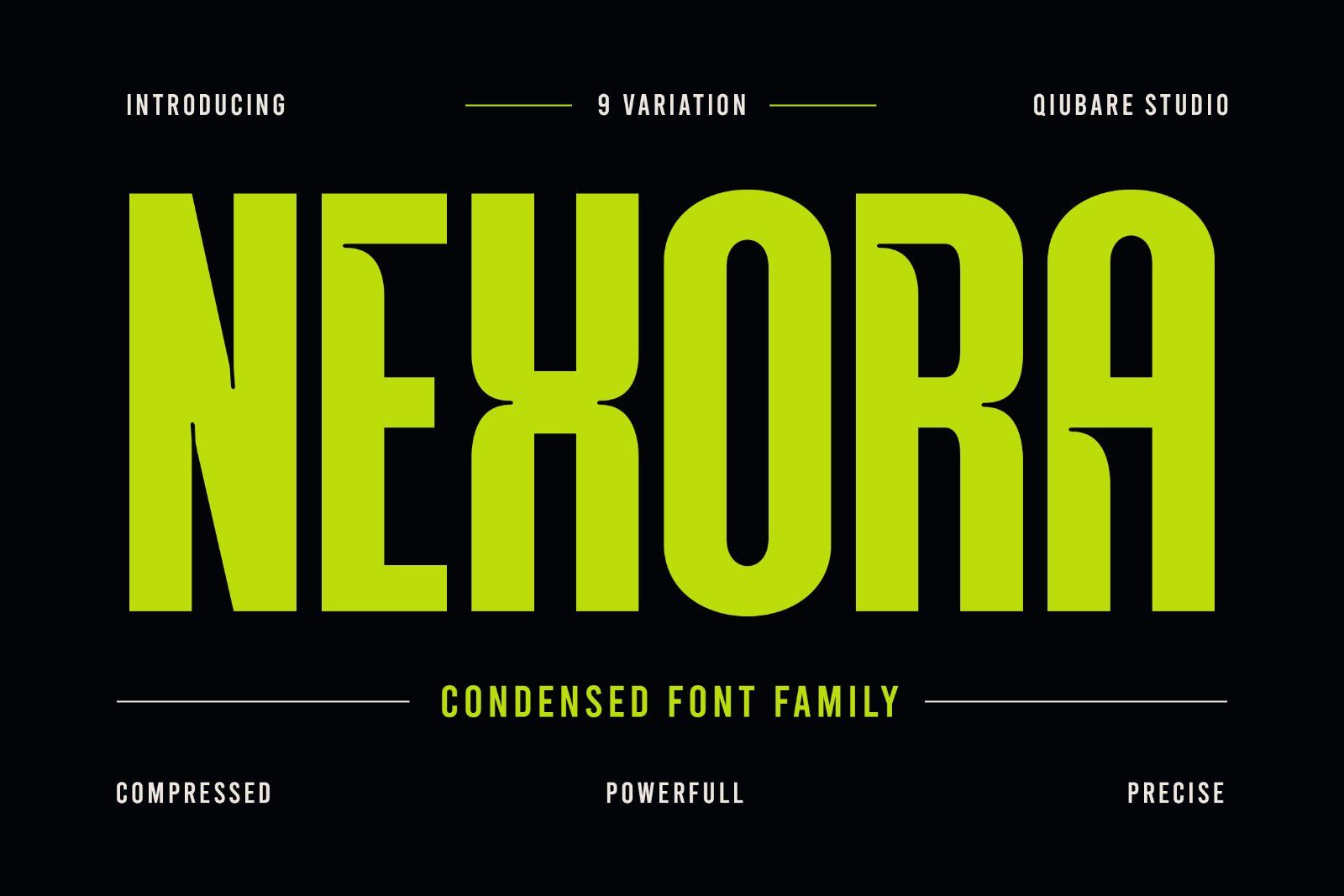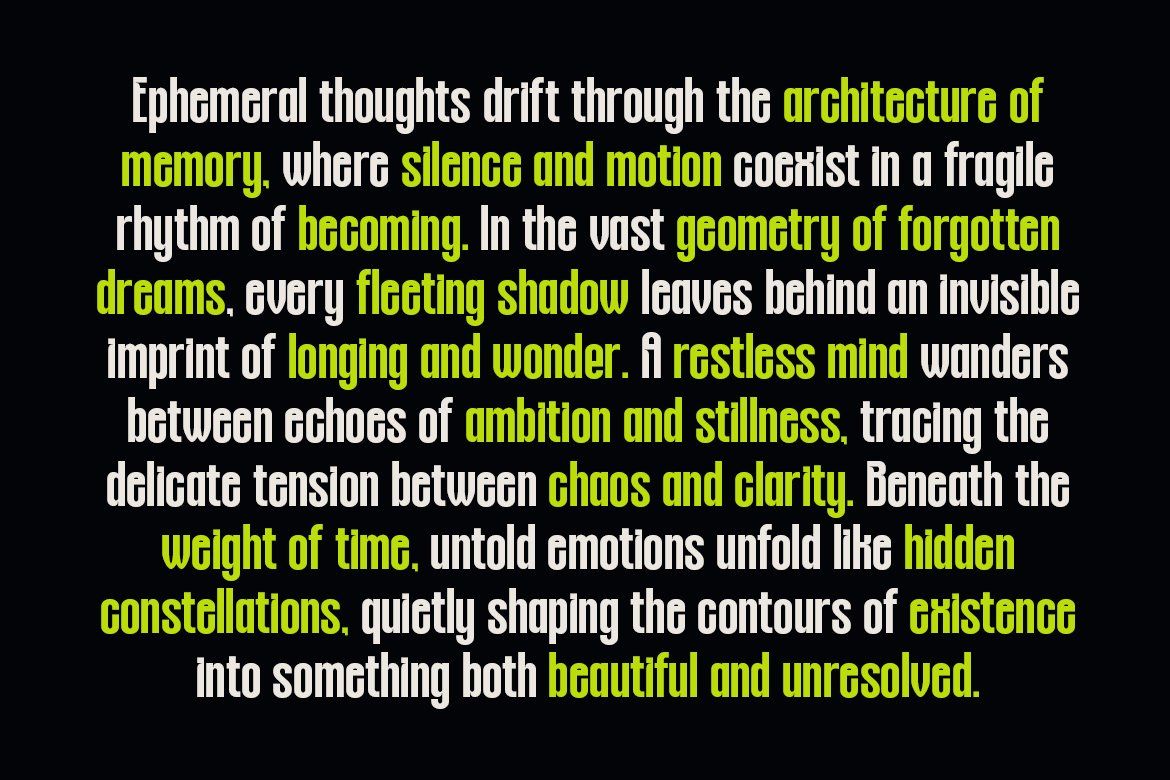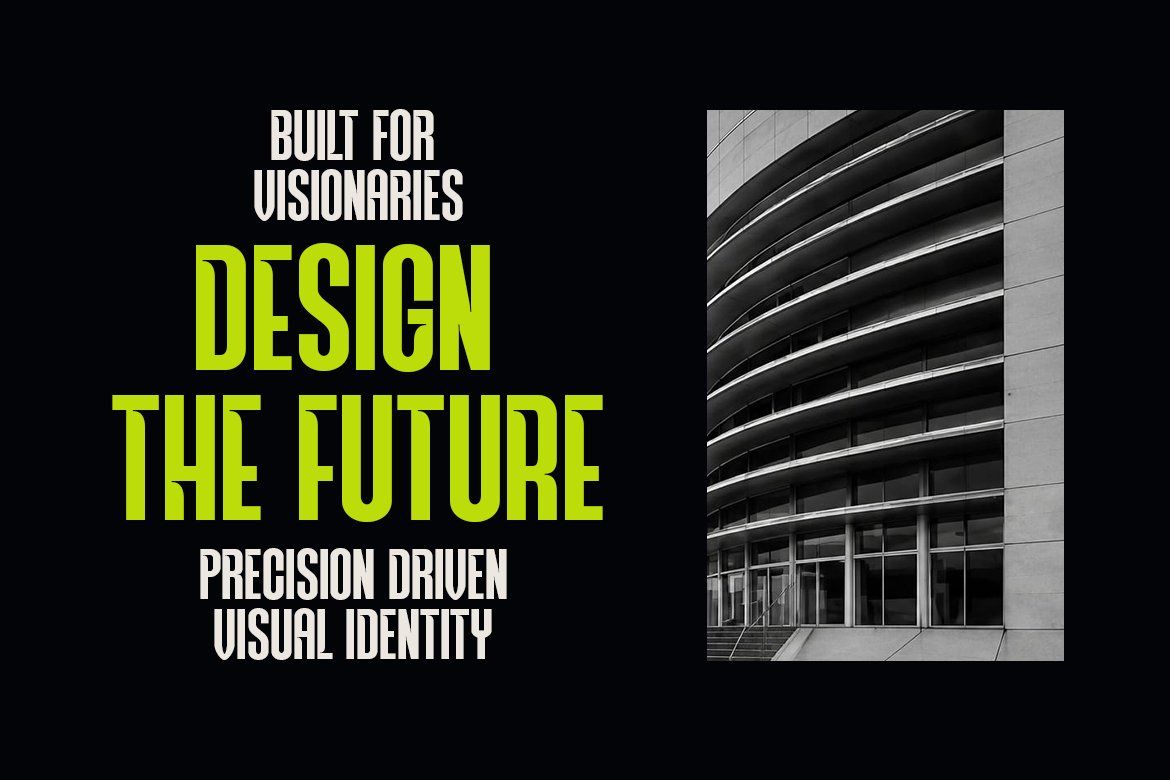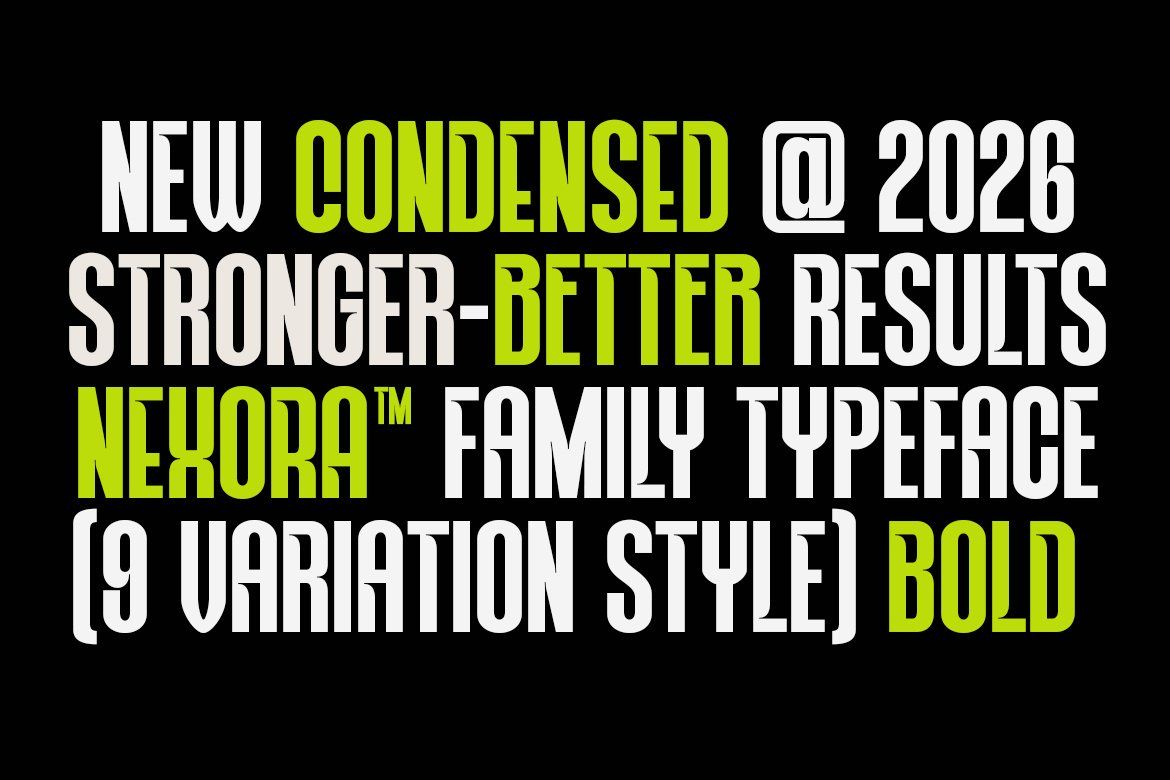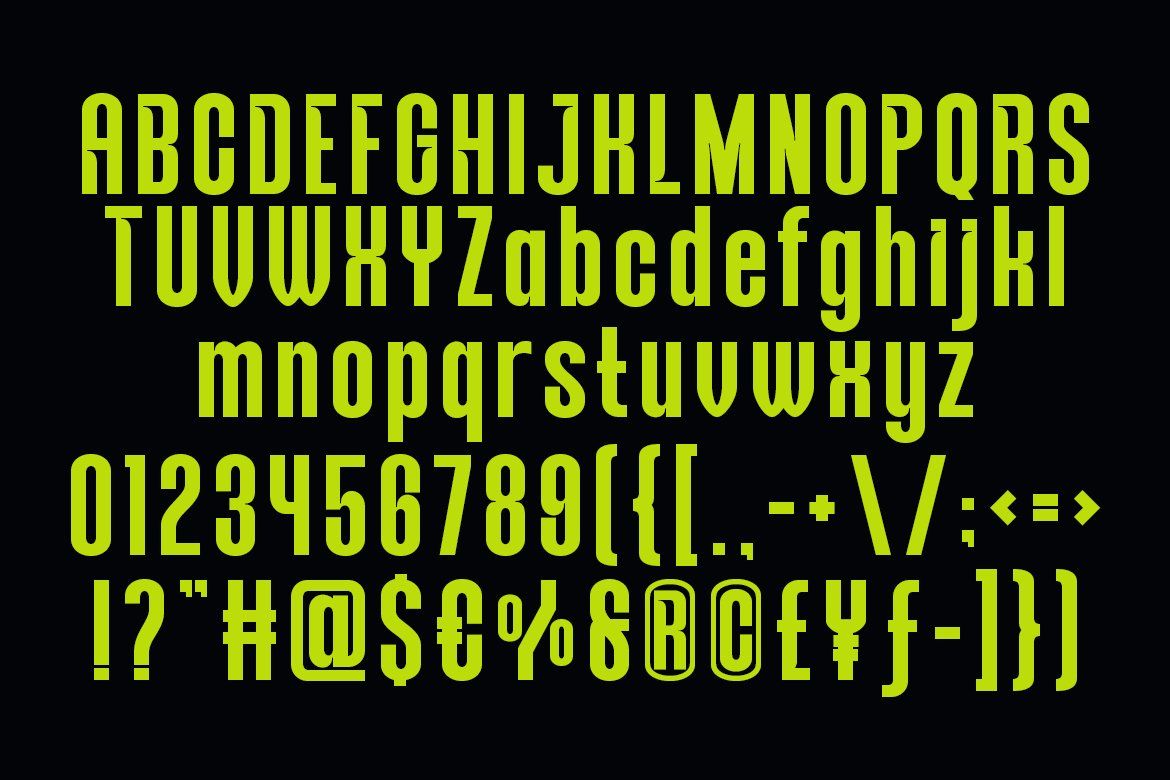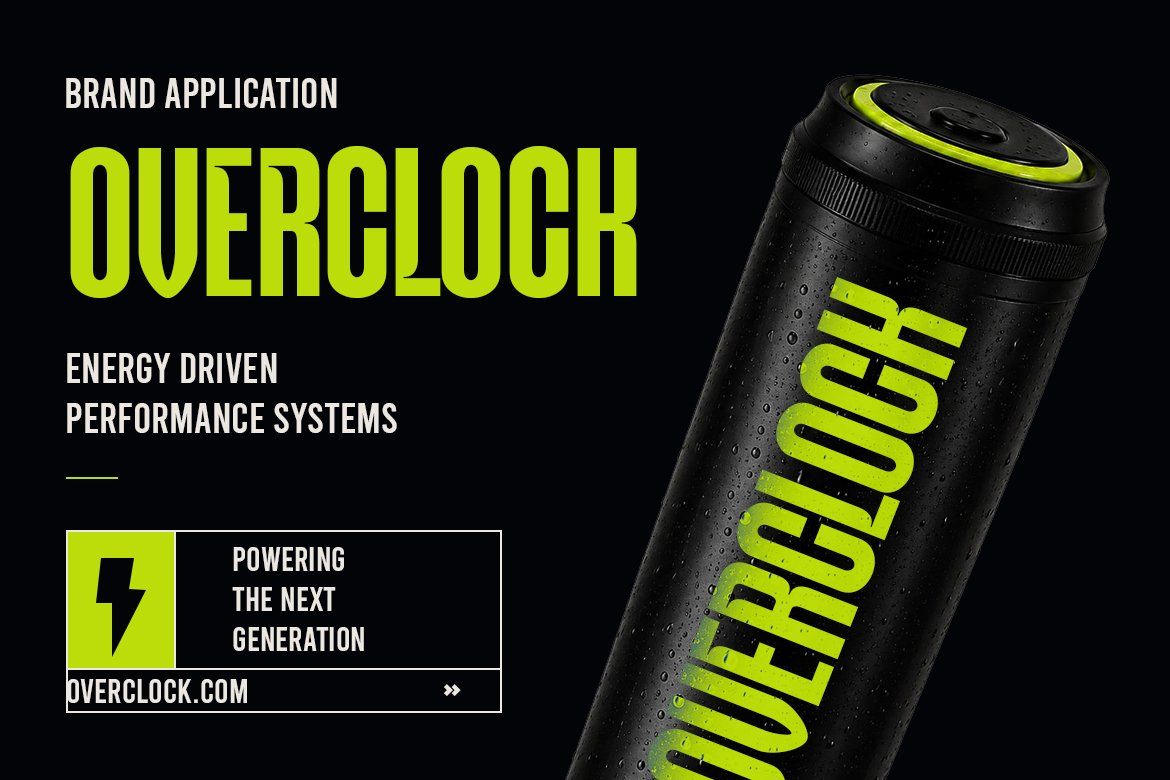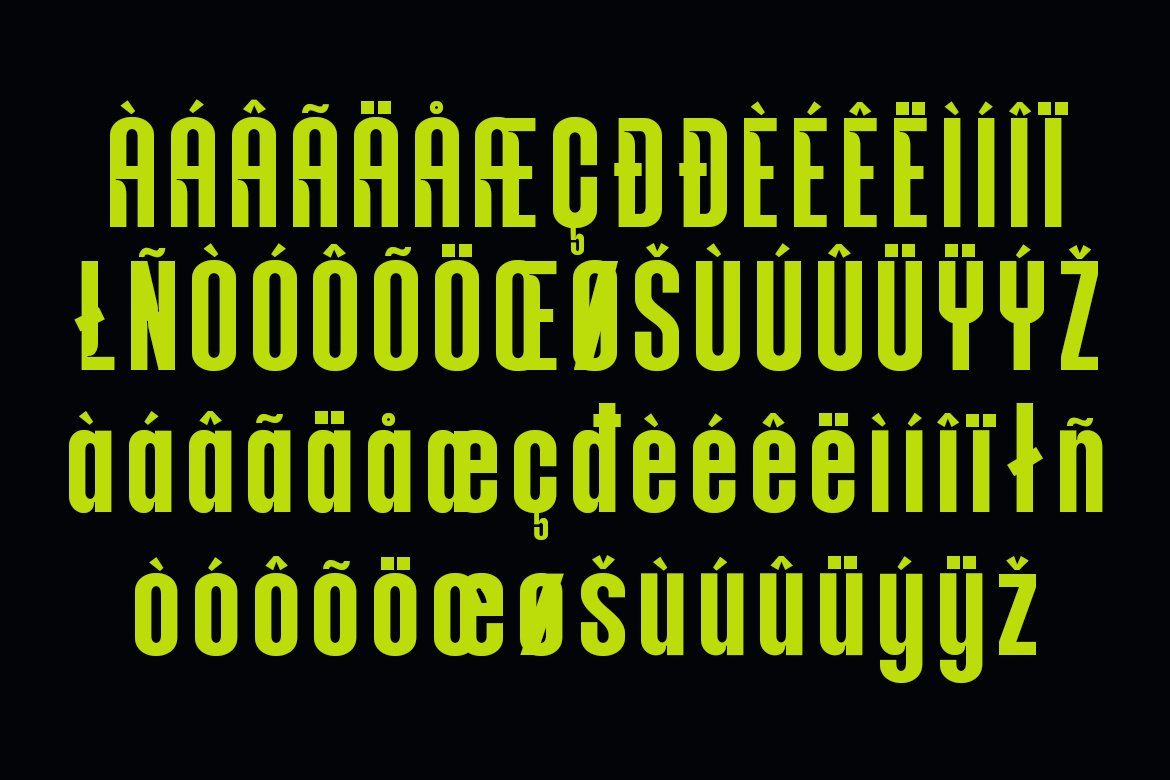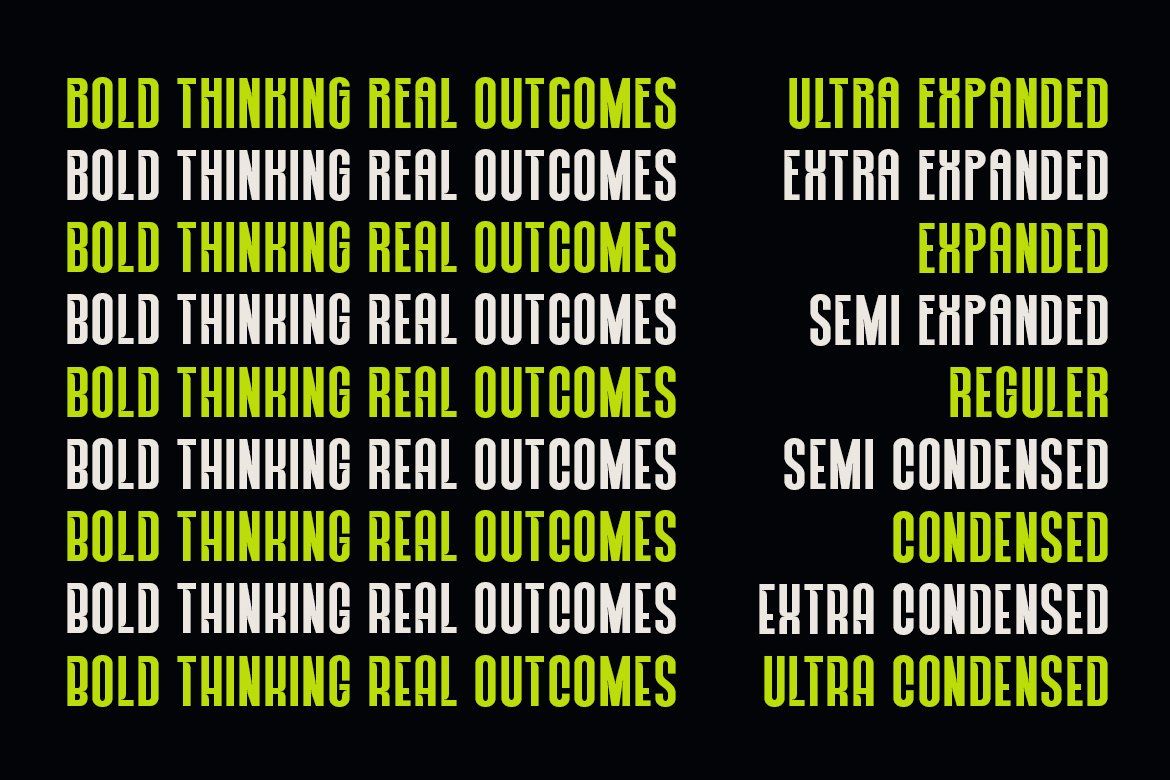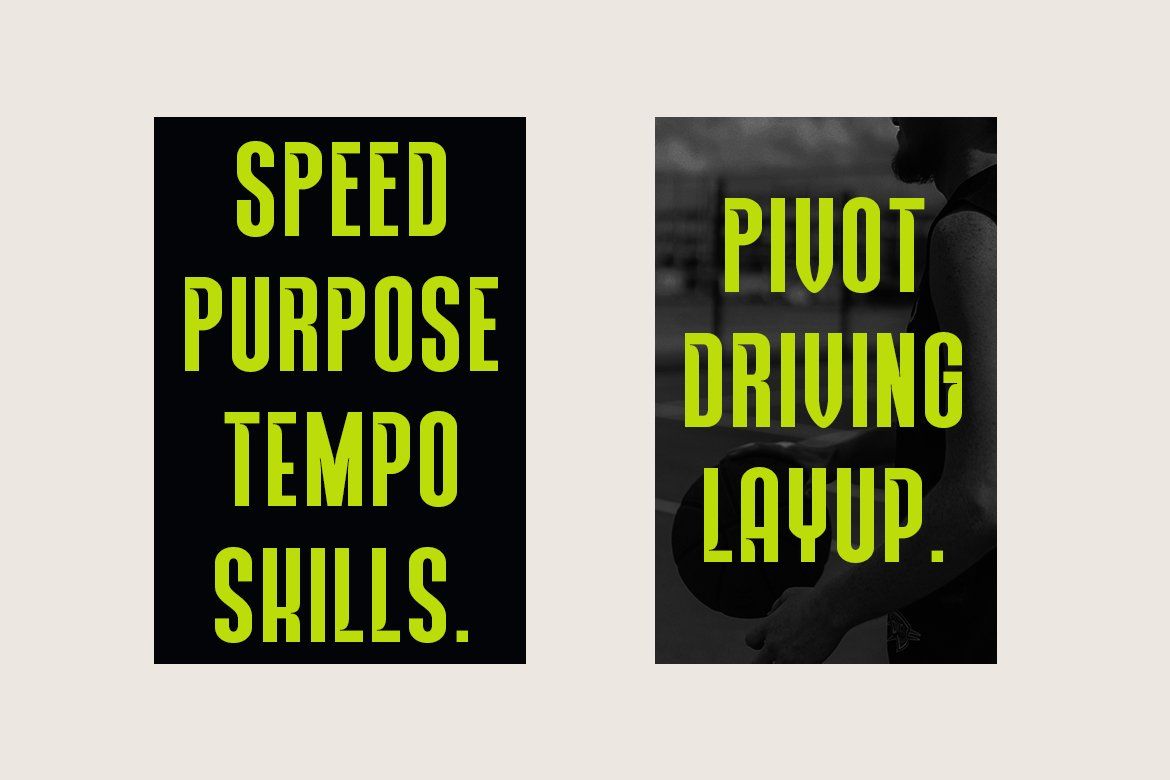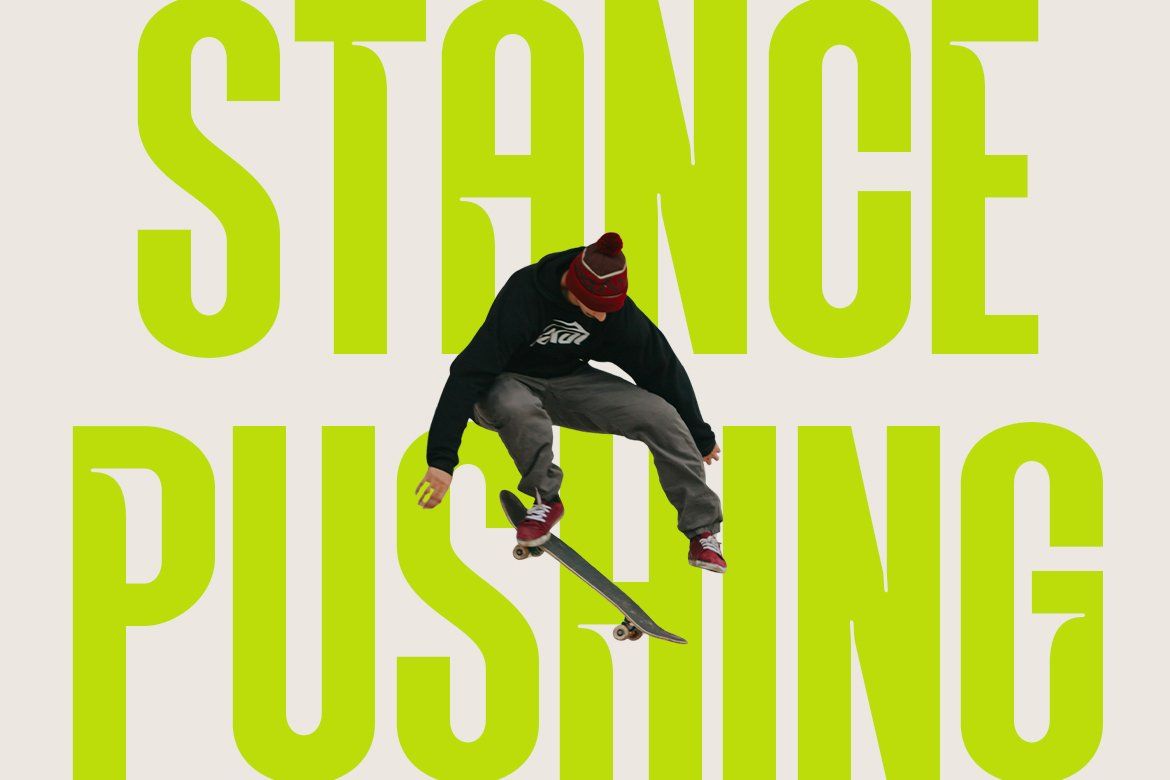
Nexaro is a modern condensed display font family engineered for designers who demand impact, precision, and versatility. Crafted with a bold geometric structure and sharp vertical rhythm, Nexora delivers a powerful visual voice across branding, posters, editorial layouts, sports graphics, fashion campaigns, UI interfaces, packaging, and futuristic visual systems.
Built with a strong condensed personality while maintaining exceptional readability, Nexaro features 9 width variations, ranging from Ultra Expanded to Ultra Condensed, allowing you to create expressive typography systems with maximum flexibility.
Whether you're designing a streetwear brand, tech startup, sports identity, editorial headline, cinematic poster, premium packaging, or modern UI showcase, Nexaro gives your work a bold, contemporary edge.
Its clean proportions, high-impact presence, and multilingual support make Nexaro ideal for designers seeking a typeface that feels modern, confident, premium, and versatile.
✨Perfect For:
• Branding & Logo Design
• Posters & Editorial Headlines
• Sports & Streetwear Graphics
• UI/UX & Digital Interfaces
• Packaging Design
• Social Media Campaigns
• Automotive & Tech Branding
• Album Covers & Motion Graphics
• Fashion Visual Systems
• Modern Advertising
✨ Font Features:
• 9 Width Variations
• Ultra Expanded → Ultra Condensed
• Symbols Included
• Clean Geometric Structure
• High Contrast Display Style
• Modern & Futuristic Character
Nexaro is designed to help brands speak louder, stronger, and more confidently. Bold structure. Powerful presence. Maximum flexibility.